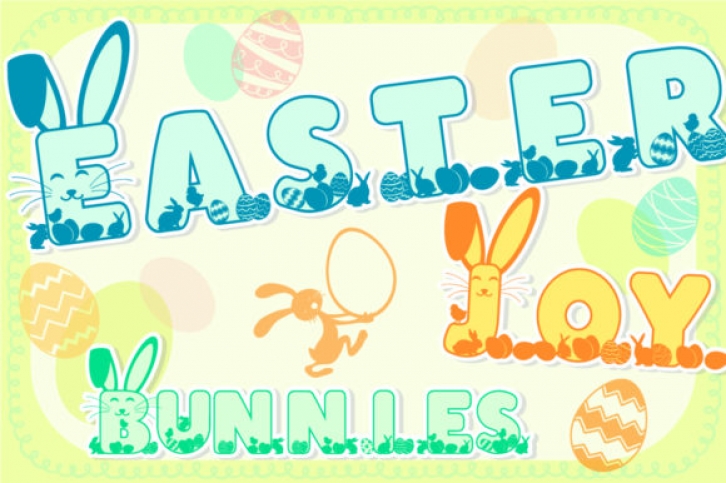
The Easter Joy Bunnies is a handcrafted font created from scratch, using as little points as possible to ensure you get the best results with minimum difficulty. Optimized for Crafters with Cricut Design Space, Silhouette Studio, ScanNCut, and all major brands. The number of points in each letter is reduced to a minimum and the cutting takes much less time.